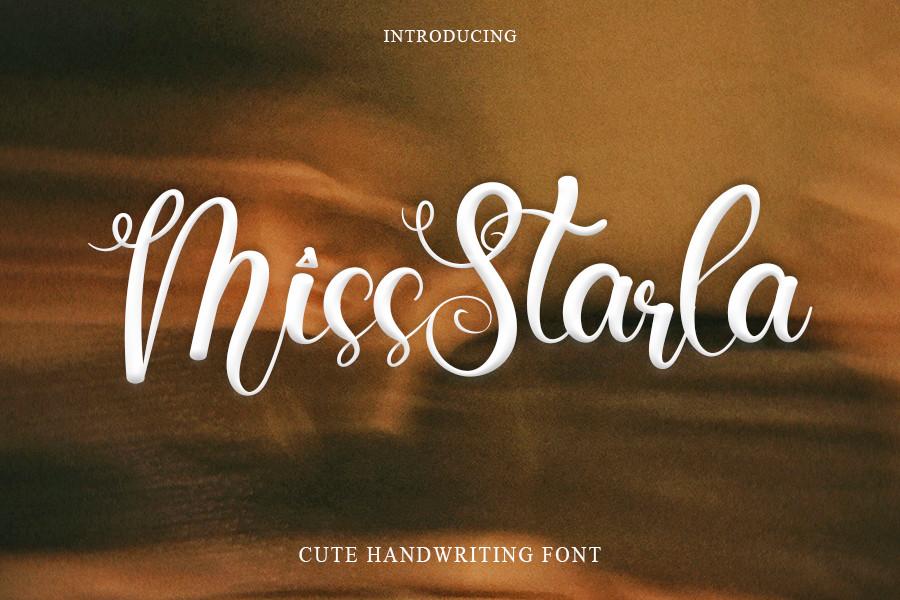
Miss Starla Font Description
Miss Starla is a casual handwritten font, carefully designed to become a true favorite. It maintains its classy calligraphic influences while feeling contemporary and fresh. Fall in love with its incredibly versatile style and use it to create spectacular designs!